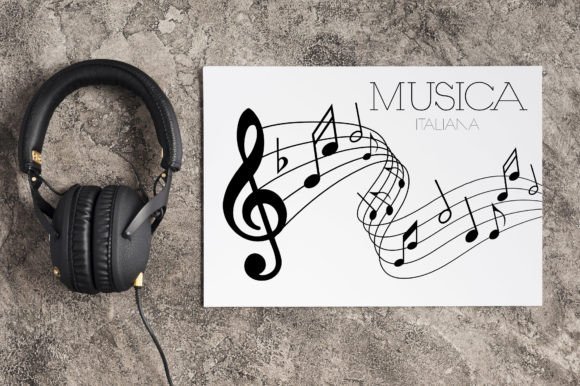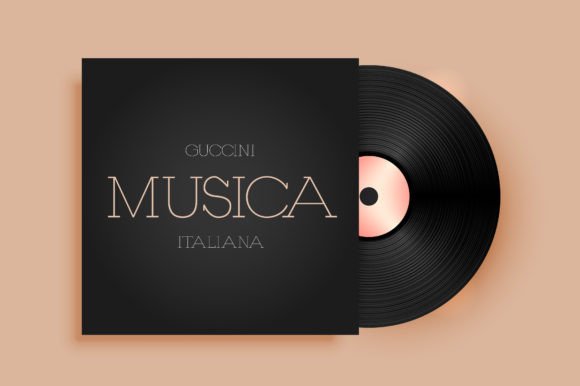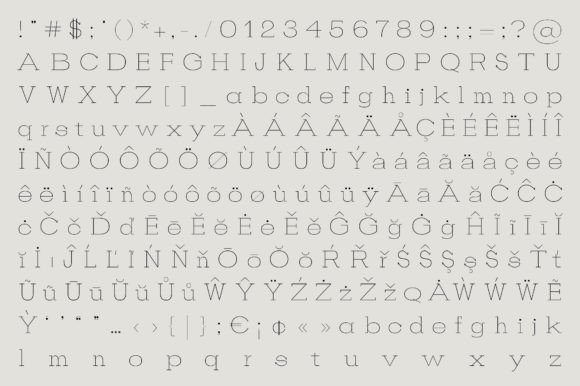
Musica: A Cute and Delicate Slab Serif Typeface
Musica is a cute and delicate slab serif typeface. It was designed and presented to fit the classical music theme, featuring a minimalistic thin aspect. This versatile font also suits various other themes, including packaging design, perfume branding, cosmetics, elegant posters, fashion design, and more. Use it confidently in your creations, and you’ll notice how it takes your designs to the next level.
Key Features of Musica
- Cute Design: Offers a charming and appealing look.
- Delicate Slab Serif: Features thin, elegant serifs that add refinement.
- Minimalistic Aspect: Brings a clean and sophisticated feel to designs.
- Versatile Application: Suitable for classical music themes and beyond.
Best Uses for Musica
Musica’s unique characteristics make it particularly well-suited for:
- Classical music-themed designs
- Elegant packaging designs
- Sophisticated perfume branding
- Stylish cosmetics packaging
- Eye-catching poster designs
- Fashion design projects
- Refined editorial layouts
When using Musica in your designs, keep these tips in mind:
- Use for headlines or short text to showcase its cute and delicate style.
- Try different sizes to highlight the font’s minimalistic features.
- Pair with simple sans-serif fonts for body text to create contrast.
- Experiment with colors to enhance its elegant appearance.
To sum up, Musica is an excellent choice for designers seeking a cute and delicate slab serif typeface. Its minimalistic thin aspect makes it perfect for classical music themes, while its versatility allows it to shine in various other design contexts. Whether you’re creating elegant packaging, designing perfume labels, or developing fashion-related content, Musica offers the ideal blend of charm and sophistication.
Moreover, Musica’s unique design allows it to stand out in various applications where a refined and delicate look is desired. For instance, from cosmetics packaging to elegant posters, this font can elevate your projects with its distinctive style. Also, its thin yet readable appearance works well in designs that aim to convey a sense of elegance and minimalism.
In conclusion, Musica truly captures the essence of delicate, minimalistic design in slab serif typography. Its versatility across different applications shows how it can fit various creative needs. Therefore, for those wanting to add a touch of refined charm to their work, Musica can enhance themed creations with its unique style. Ultimately, it’s an ideal choice for designers aiming to make a cute, elegant impact across a wide range of creative projects.